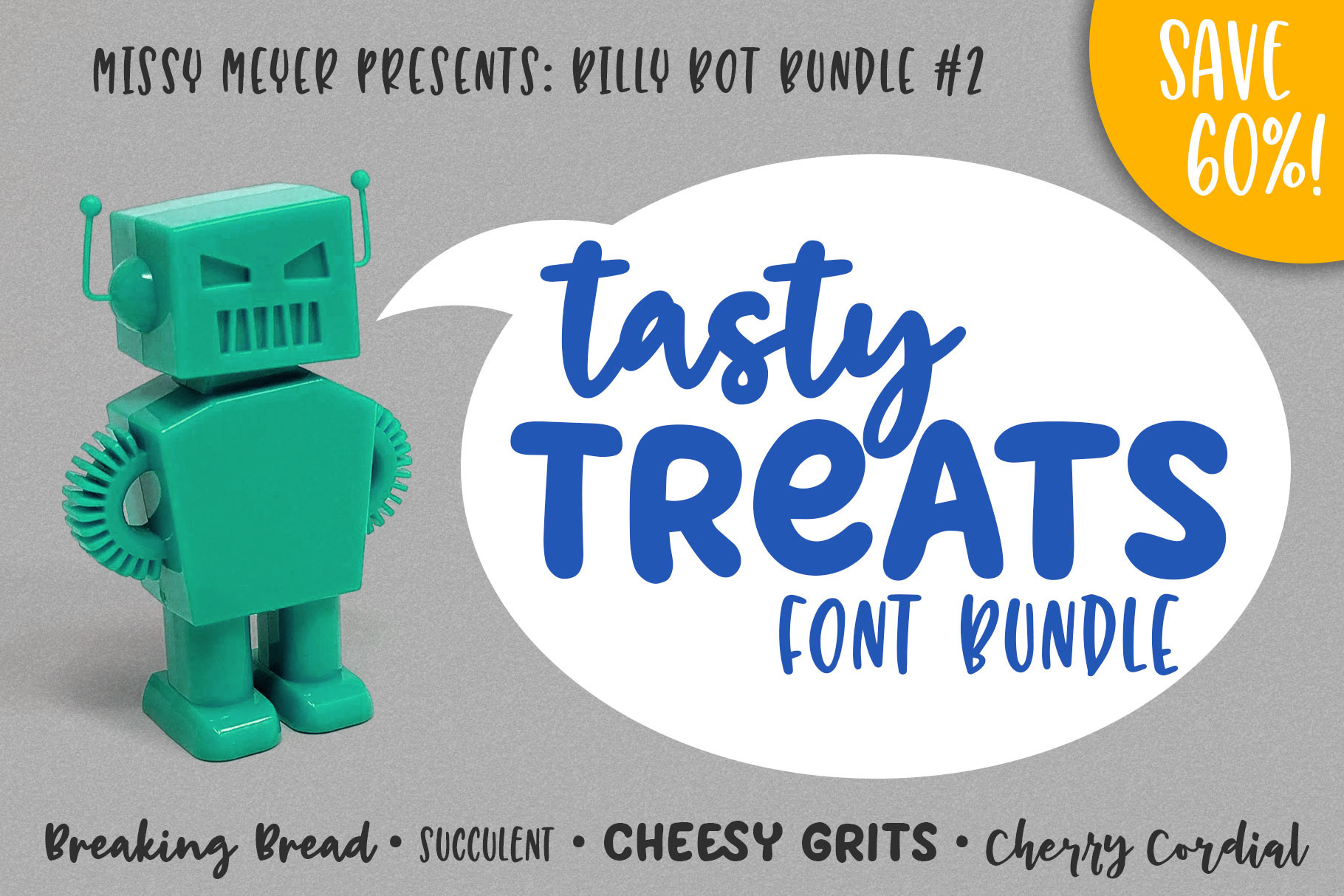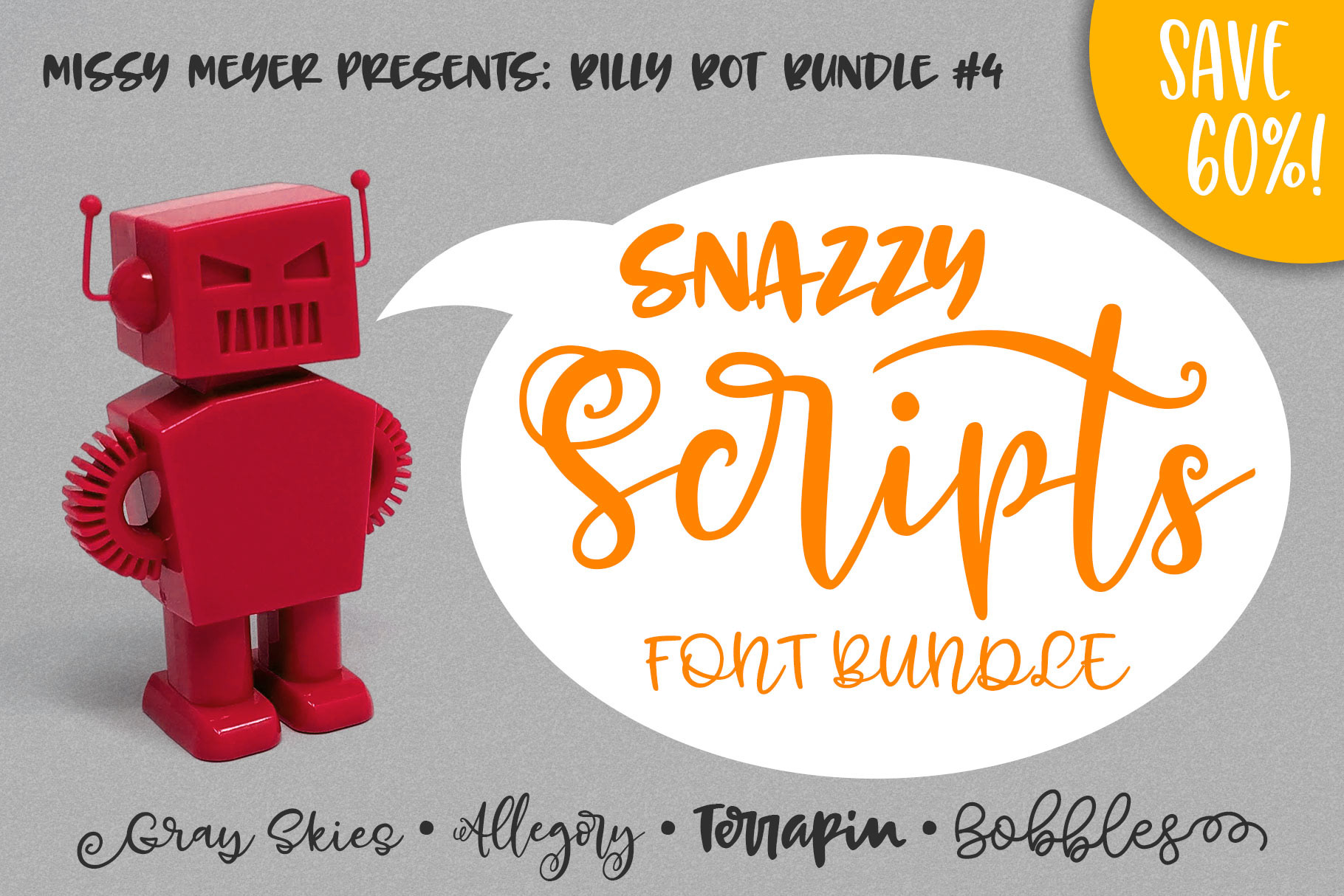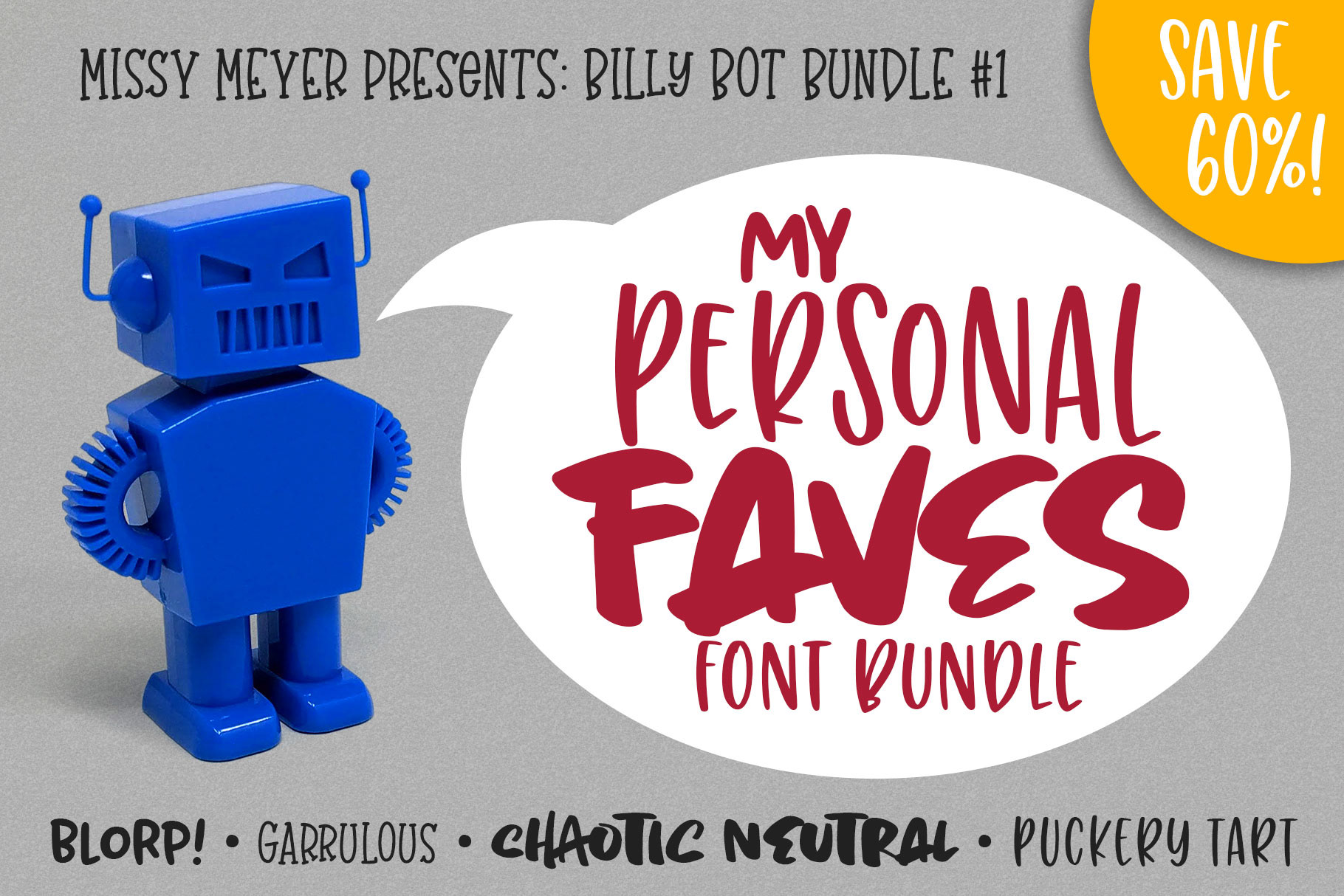
Billy Bot is a little plastic robot who sits on my desk. I’ve had him for years — he started out life as a cheap portable speaker, but stopped working surprisingly fast. But I couldn’t get rid of him — he was just too darn cute.
So recently I was sitting at my desk, looking at Billy, who was standing there with his little robot hands on his little robot hips. I asked Billy, “Should I make some little bundles of my fonts?”
Billy wiggled his antennae and said, “Not only should you do that, you should name them after me.”
So here we are, with my new Billy Bot Bundles!
This is BBB #1, a collection of my personal favorite fonts. Because while some might say I should love all my font children equally, I totally don’t. These are the fonts that I go to when I need to type something out, and the ones I’m most satisfied with. You get two heavier fonts and two lighter fonts, which makes pairing easy!
My Personal Faves Font Bundle (Billy Bot Bundle #1) contains:
This is BBB #2, a set of fonts with a sort-of theme of food-like names. (Yes, yes, a succulent isn’t a food, it’s a category of plants. Although you could eat a cactus if you really wanted to.) You get a nice combination of styles here — two connecting script fonts, and two print fonts, so you can mix and match within the bundle!
The Tasty Treats Font Bundle (Billy Bot Bundle #2) contains:
This is BBB #3, a set of fun and flexible workhorse fonts in sans-serif and slab-serif styles. Due to their simpler, cleaner style, these fonts can pair with almost anything; plus, they can stand on their own, and all of them have more than one font in the family for variety.
The Fun Work Horse Font Bundle (Billy Bot Bundle #3) contains:
This is BBB #4, a set of connecting script fonts with some fun extras, alternates, and ligatures. Whether you want a more casual script, or something with fancy swirls, or even something modern and heavy, this font has fun choices for you. All four fonts in this collection come with PDF character guides to help you get the most fun and variety out of these fonts.
The Snazzy Scripts Font Bundle (Billy Bot Bundle #4) contains:
This is BBB #5, a set of tall and narrow fonts good for a thousand and one uses. Whether you’re after something with a more farmhouse feel like Barn Dance, a party font like Velvet Pants, or the weird hybrid of a serif-script combo like Jumbuck, these will liven up any project.
The Tall Friends Font Bundle (Billy Bot Bundle #5) contains: